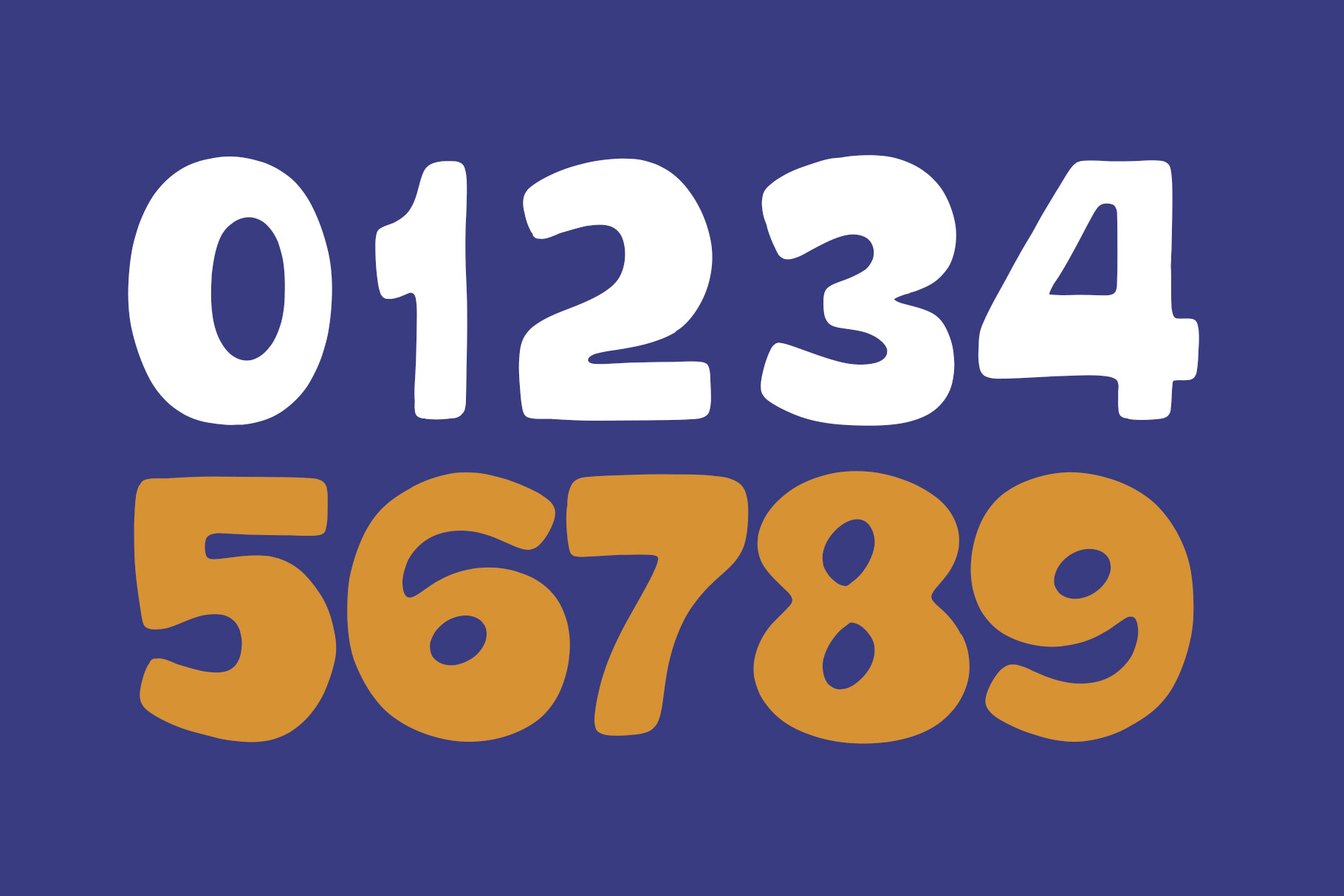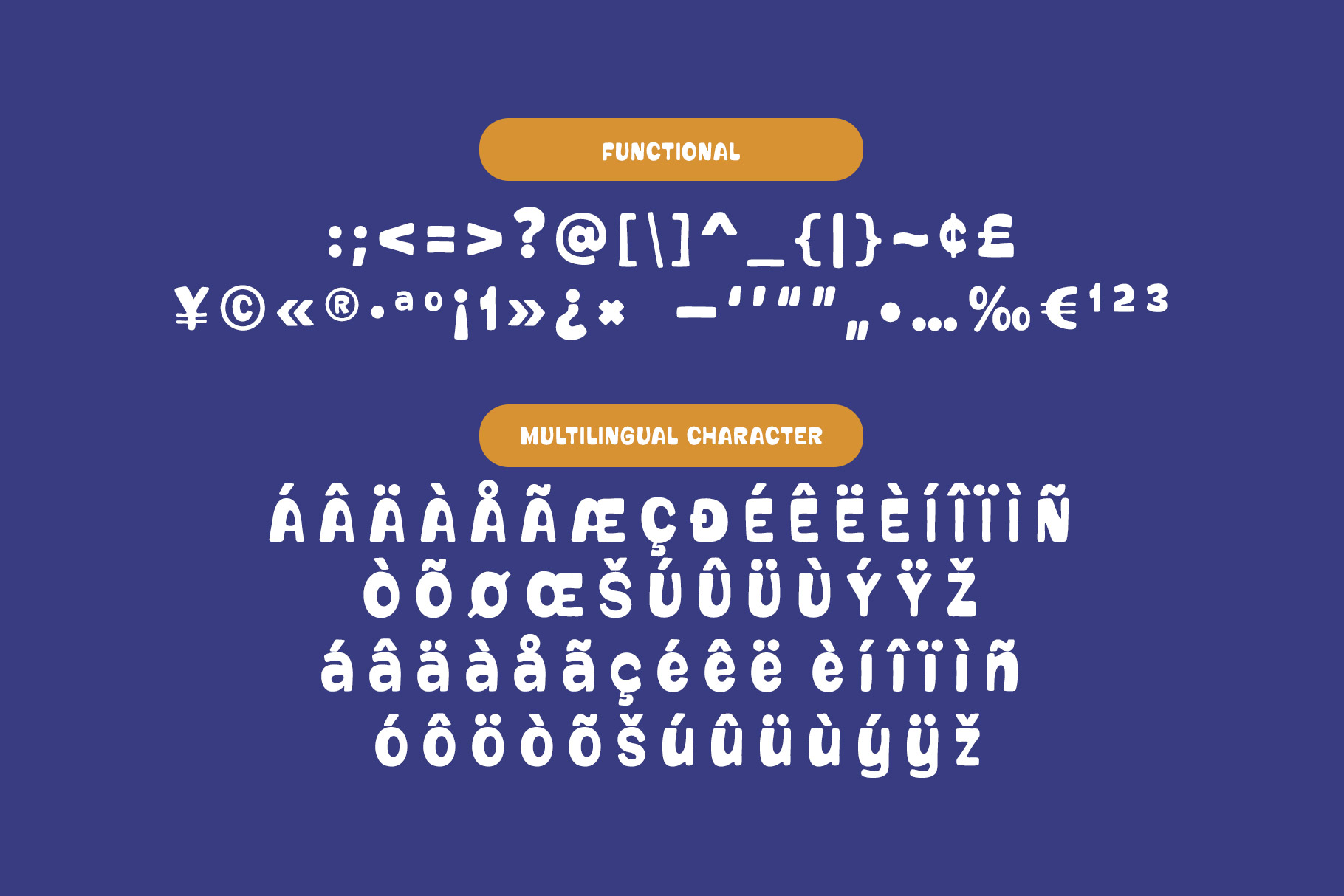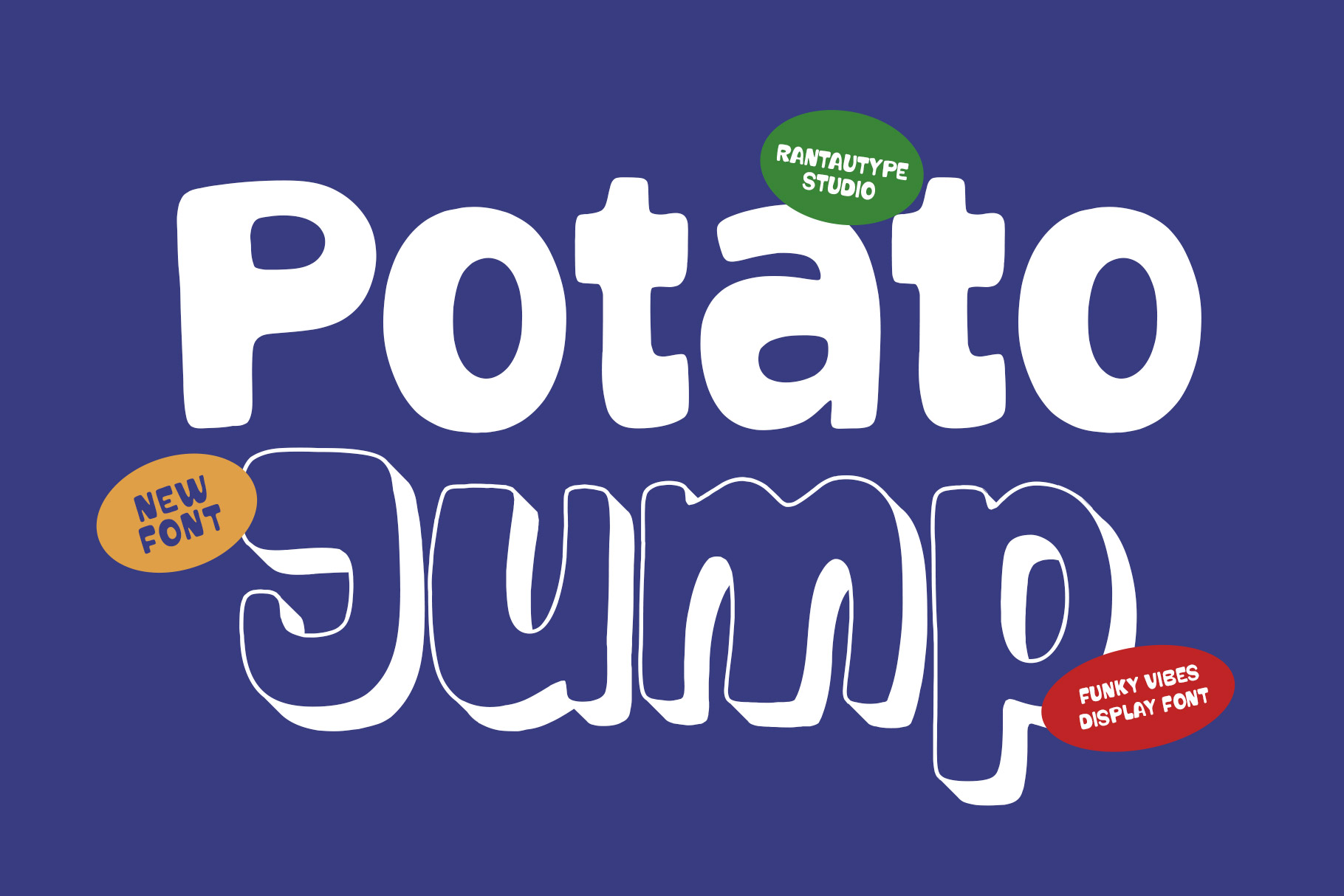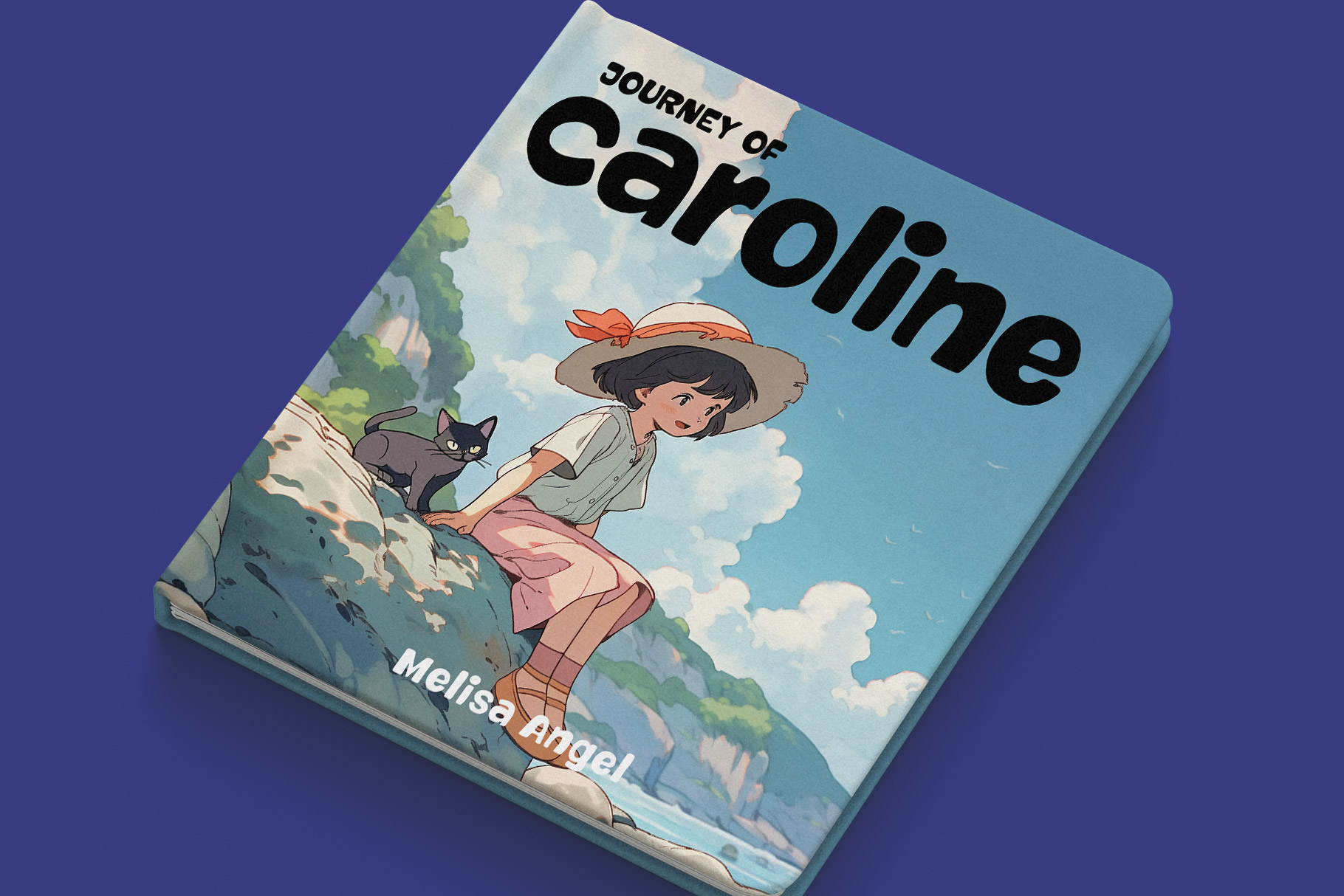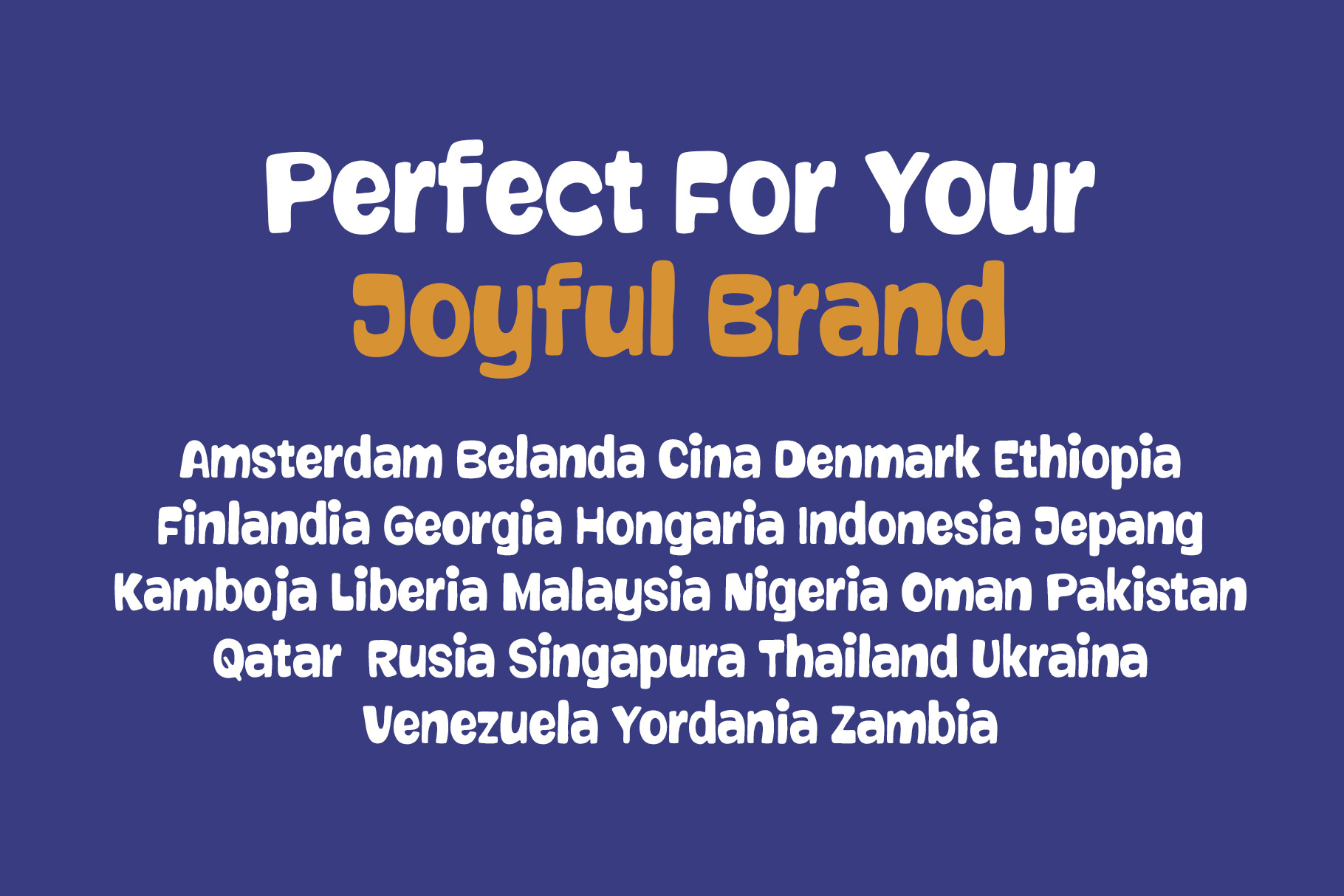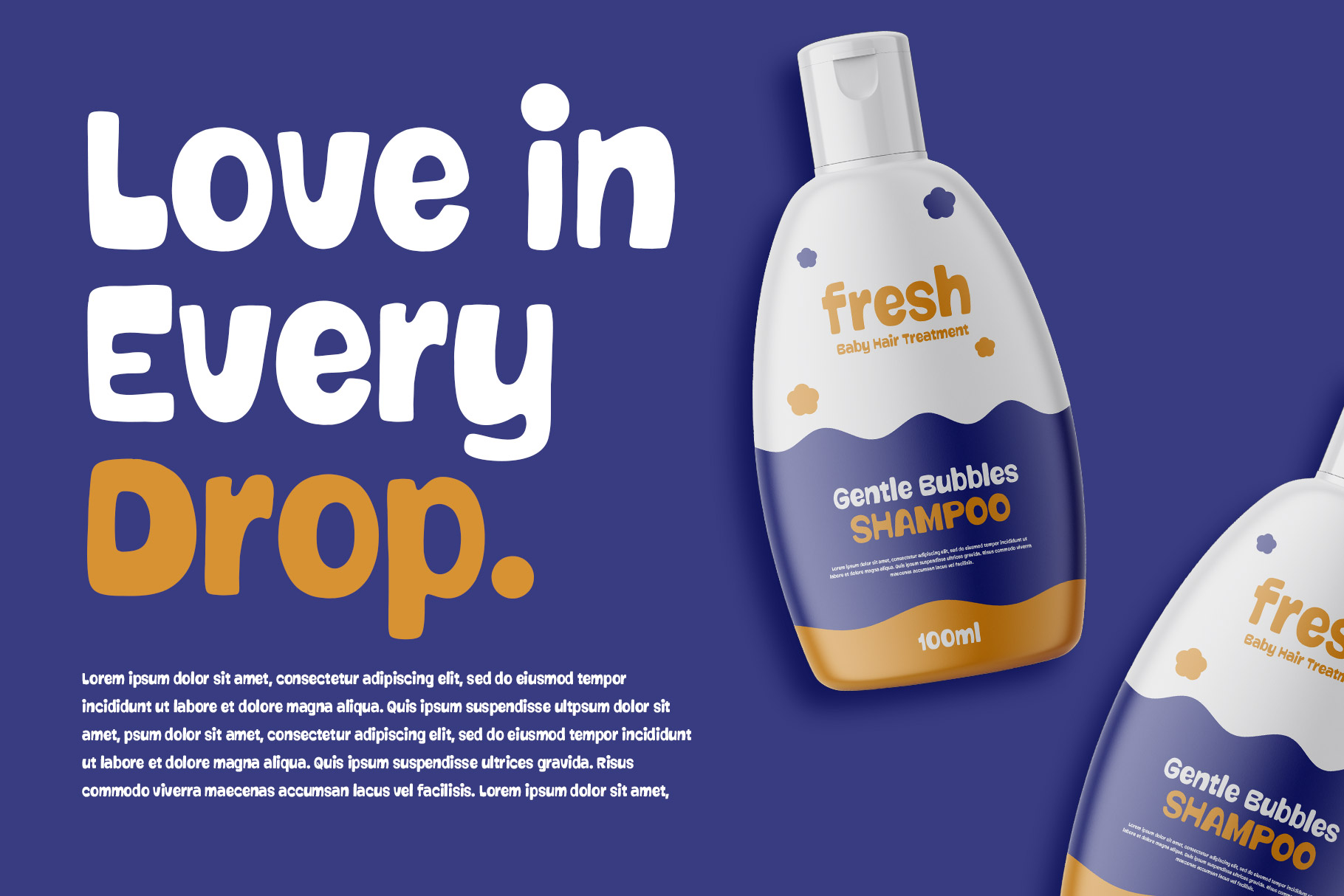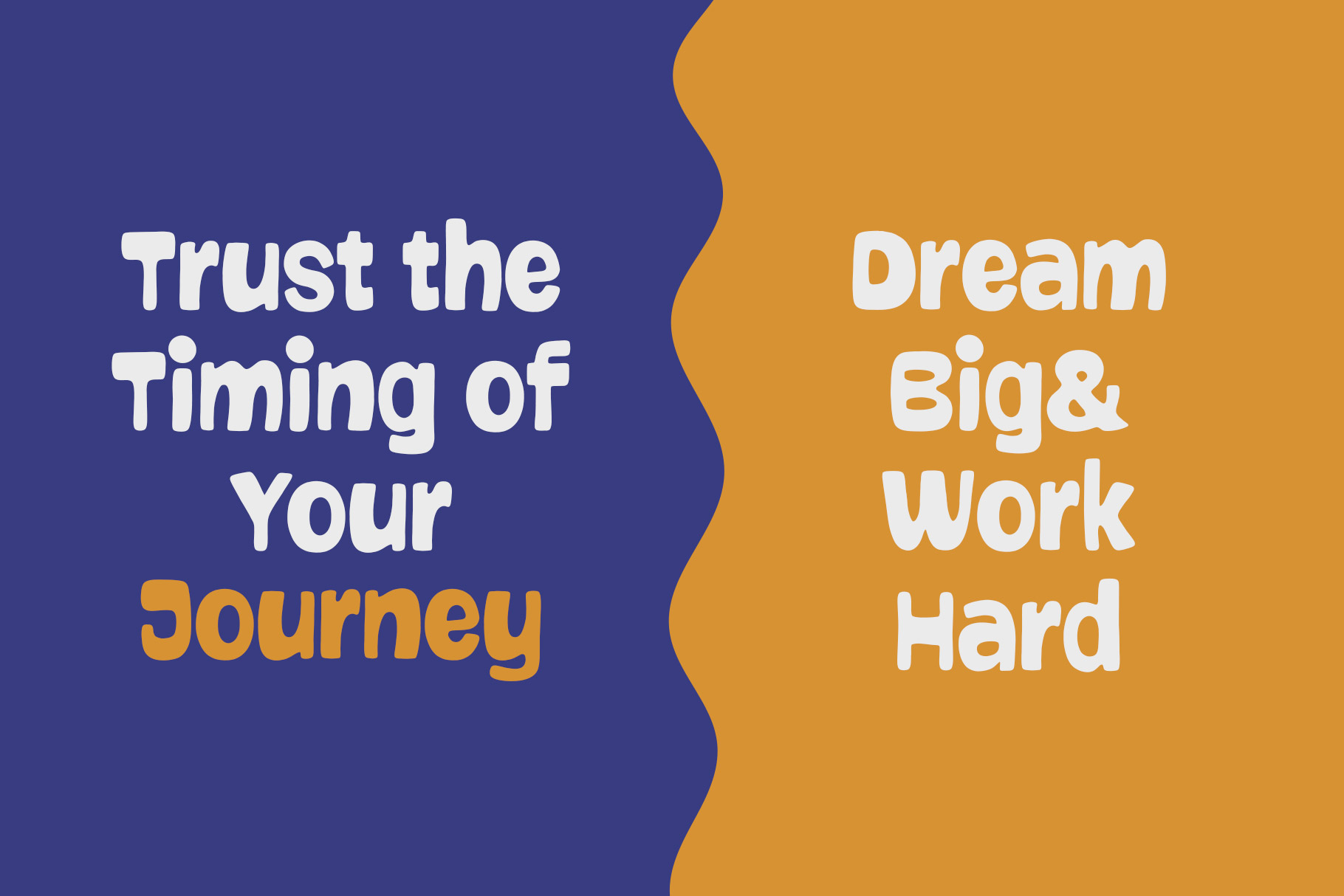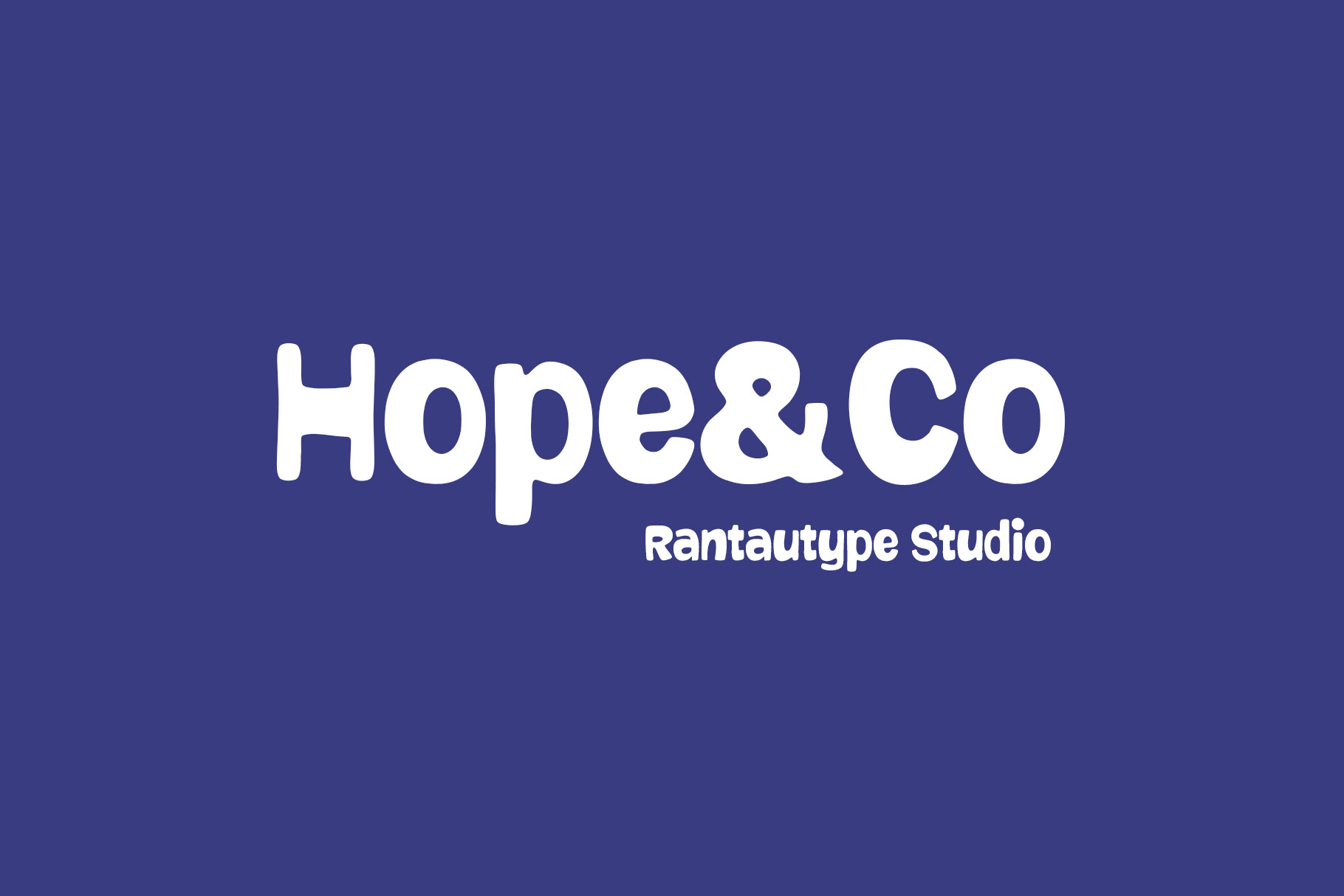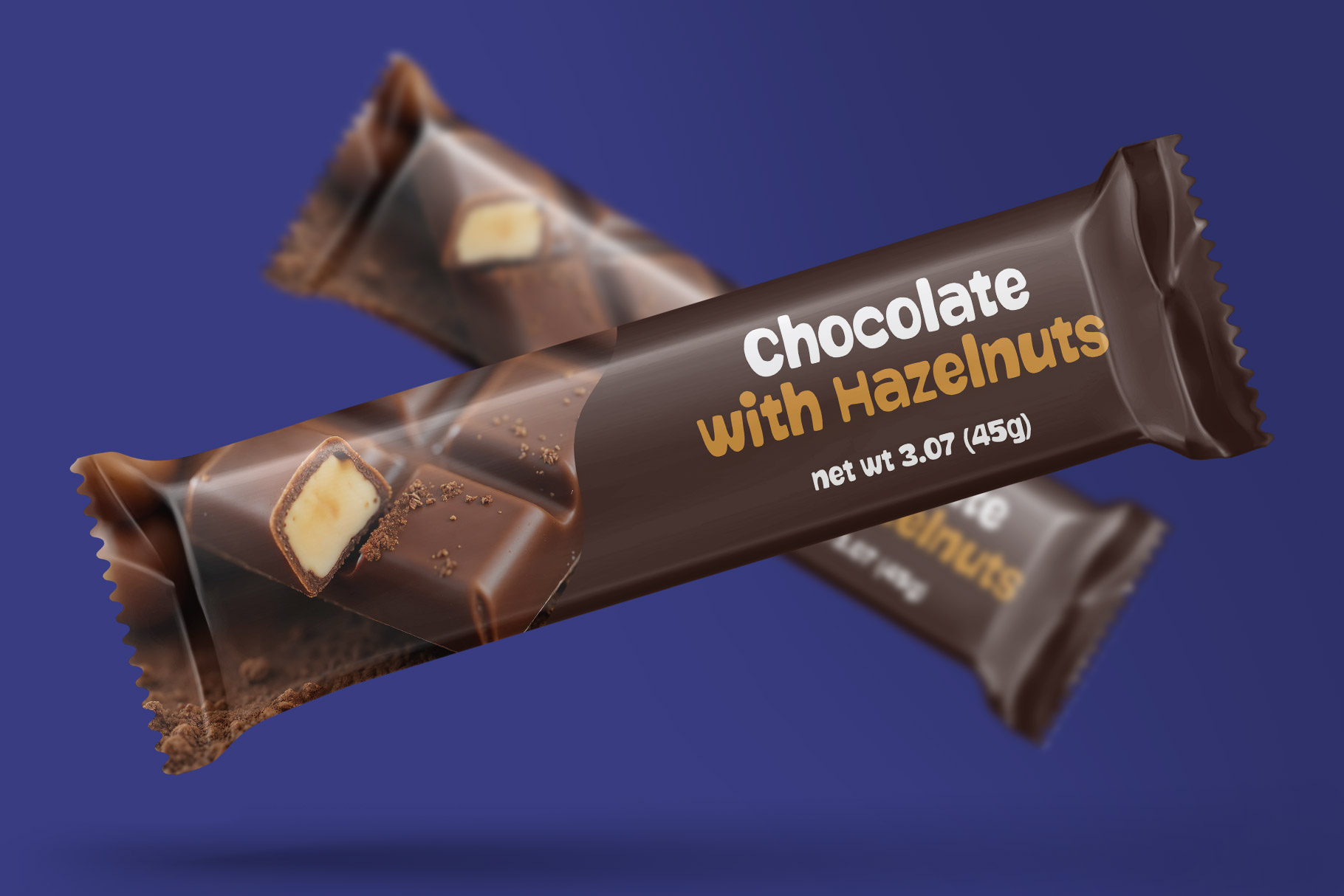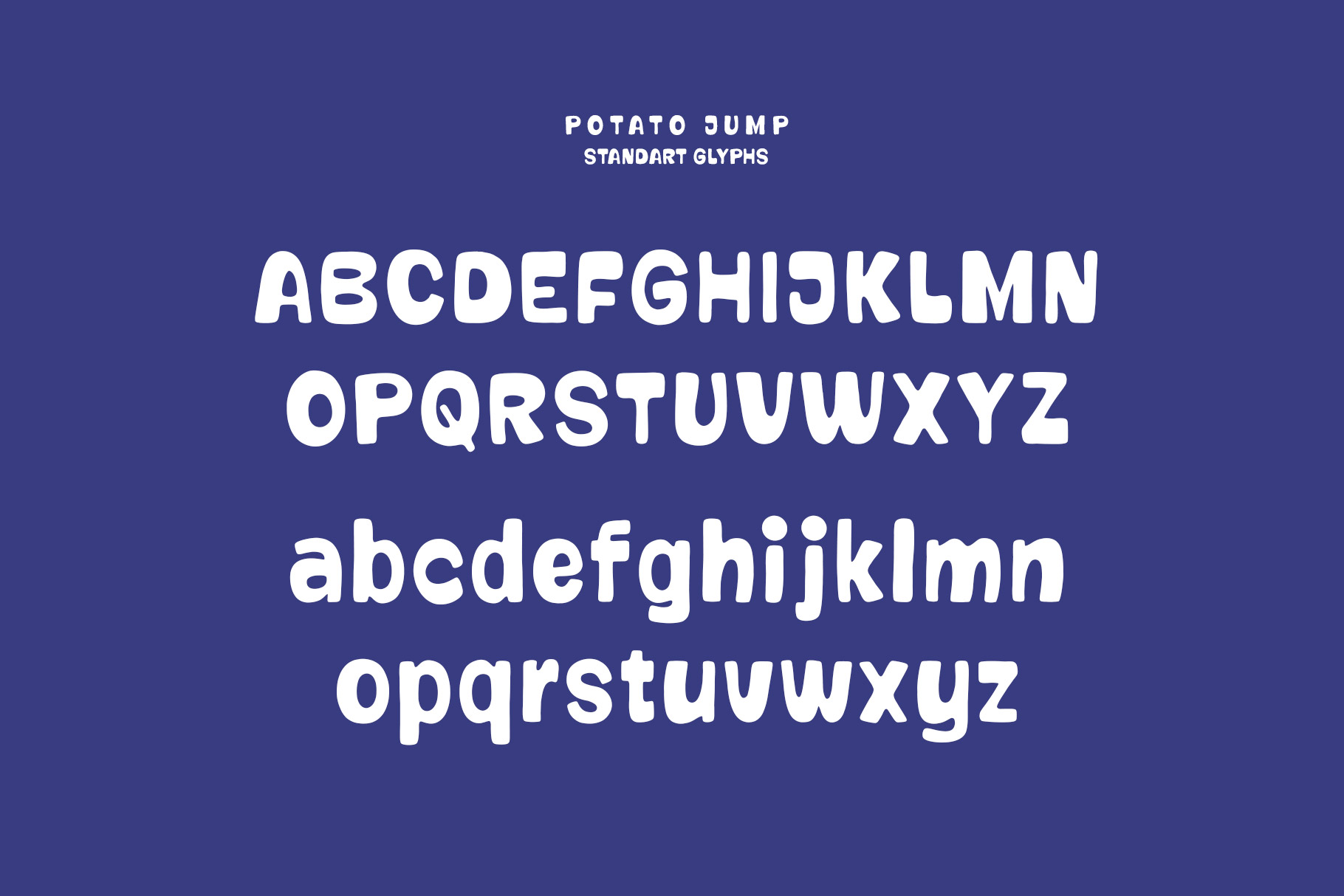
Potato Jump Funky Fun Vibes Font
Potato Jump is Funky vibes font made by rantautype studio. Potato Jump bring joyful expression and each character feels dancing. Potato Jump is a perfectly choice for any creative endeavor, chic, lifestyle design such as logotype, advertisements, watermark on photography, stationery, branding project, display and magazine, invitation, corporate brand, product design, label, business project and many other project with playful touch.